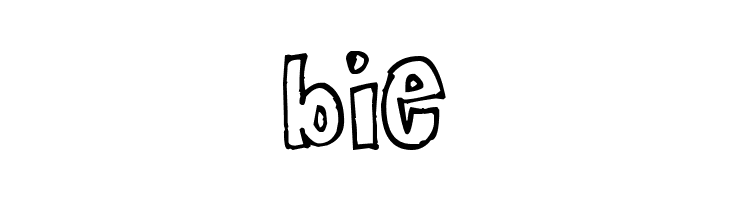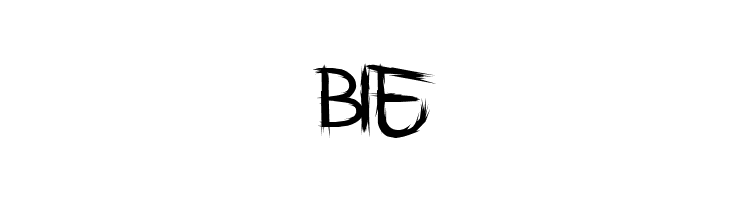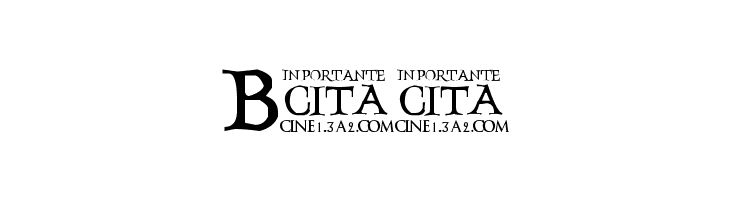
• InportanteCita
A classic serif font with bold, elegant characters and sharp serifs.
• Instalove Diary
A flowing, handwritten font with elegant, elongated strokes and a casual sophistication.
• Invertage
A distorted, abstract font with fragmented characters, ideal for artistic projects.
• Inzania
A playful, narrow font with consistent stroke width and rounded edges.
• Isogul
A bold, dynamic font with sharp, angular edges and a distressed, hand-drawn appearance.
• Jacinto Sans
• Jack Martine
A bold, distressed font with a vintage, textured appearance.
• Jacknife
A bold, edgy font with jagged, distressed strokes for a rebellious look.
• JackTrades
A playful, hand-drawn font with bold, irregular outlines.
• Jaggy Fries